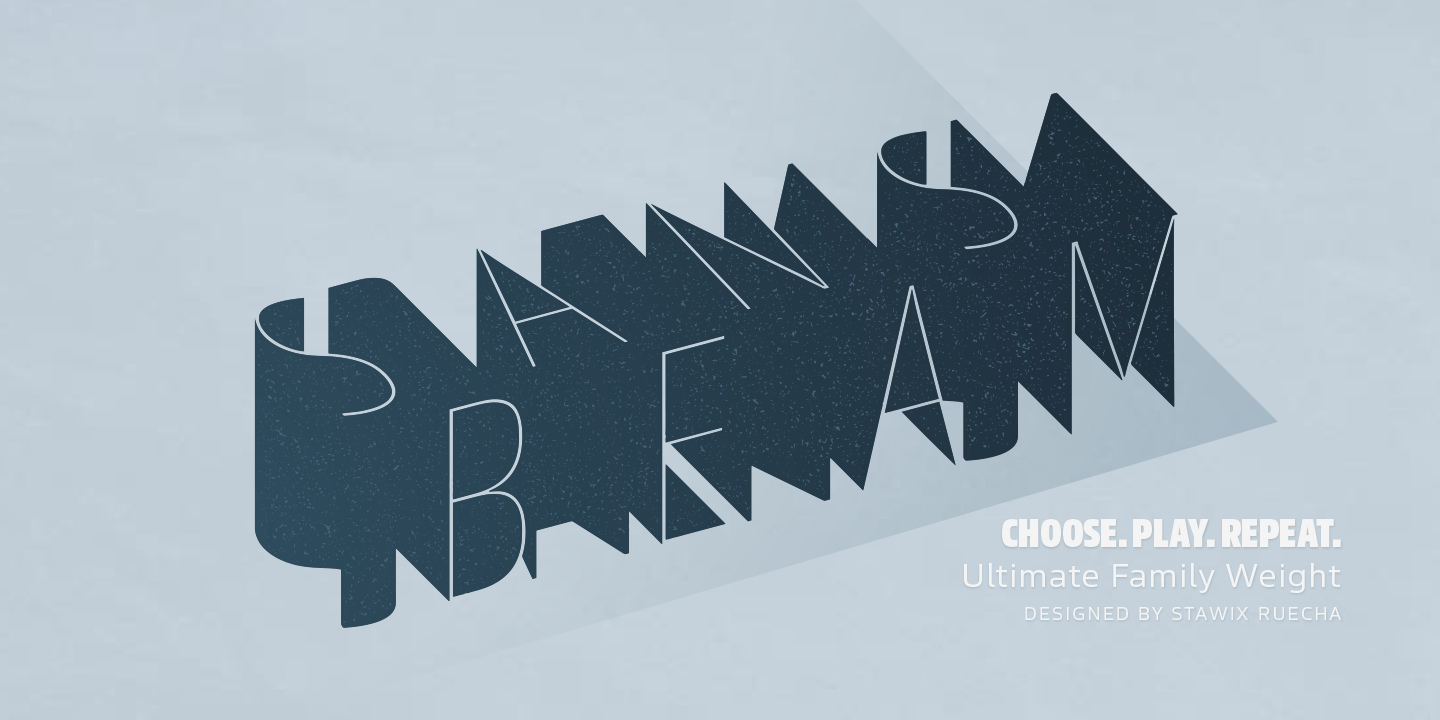
Sans Beam Font is a dynamic and modern sans-serif typeface that is perfect for a wide variety of design applications. Its geometric structure and clean lines give it a futuristic yet highly readable feel, making it ideal for everything from digital interfaces and app design to branding, logos, and print materials like posters and magazines. It's particularly effective for creating headlines that command attention and body text that is easy on the eyes. The versatility of this font makes it a go-to choice for designers looking to create a sharp, professional, and contemporary look. The Sans Beam Font Free Download allows you to test this versatility in your own projects.
What makes Sans Beam Font so exciting is its unique blend of technical precision and aesthetic appeal. The font’s letters are crafted with a perfect balance of negative and positive space, which gives it a clean and open feel. This meticulous design ensures that the font remains legible even at smaller sizes, a critical feature for web and mobile design. Its subtle, futuristic touch adds a layer of sophistication without being overly stylized, allowing it to integrate seamlessly into diverse design themes, from tech-focused projects to fashion and lifestyle brands. Its clean and minimalist character ensures that your message is delivered clearly and stylishly, making it a powerful tool for visual communication.
The Sans Beam Font family is comprehensive and designed to provide you with a full range of options for your projects. The family includes weights such as Sans Beam Light, Sans Beam Regular, Sans Beam Medium, and Sans Beam Bold. This selection allows for excellent typographic hierarchy, enabling you to use lighter weights for detailed information and bolder weights to highlight key messages or brand names. The variety within the family gives you the freedom to create contrast and emphasis in your designs, ensuring that every element of your layout serves a clear purpose and contributes to a cohesive visual narrative.
This font is more than just a typeface; it’s a design asset that can help you define your brand’s personality and communicate your vision effectively. Its modern, no-nonsense approach is perfect for brands that value clarity, innovation, and a contemporary aesthetic.